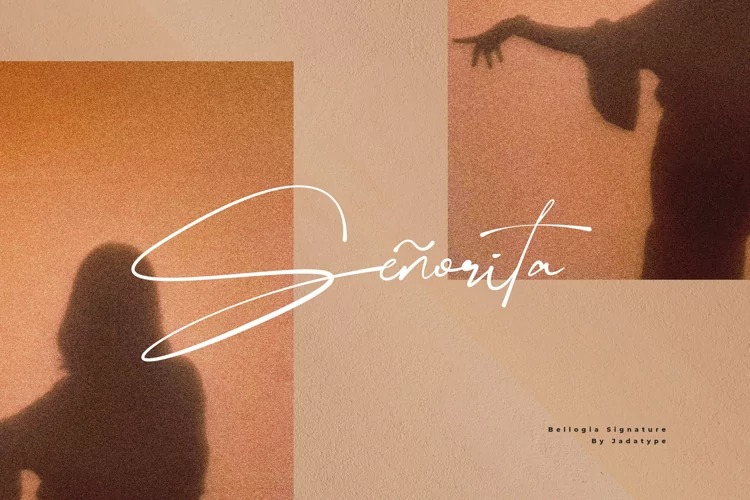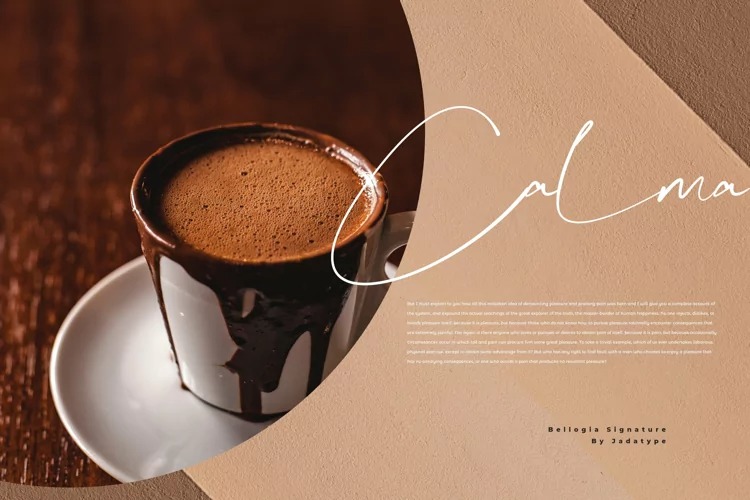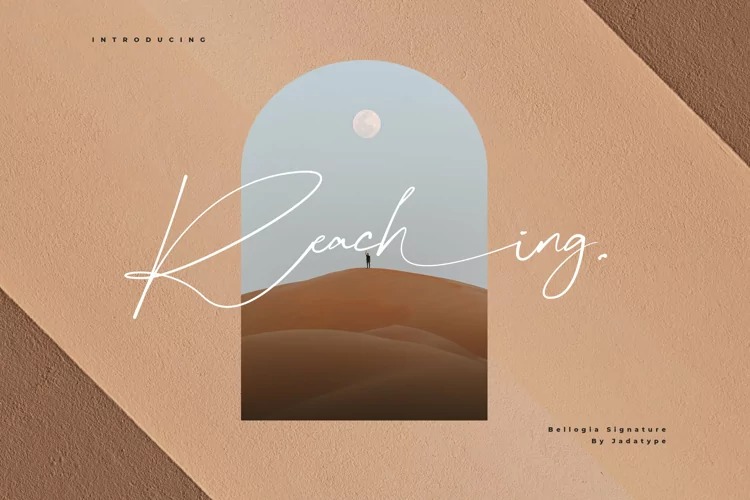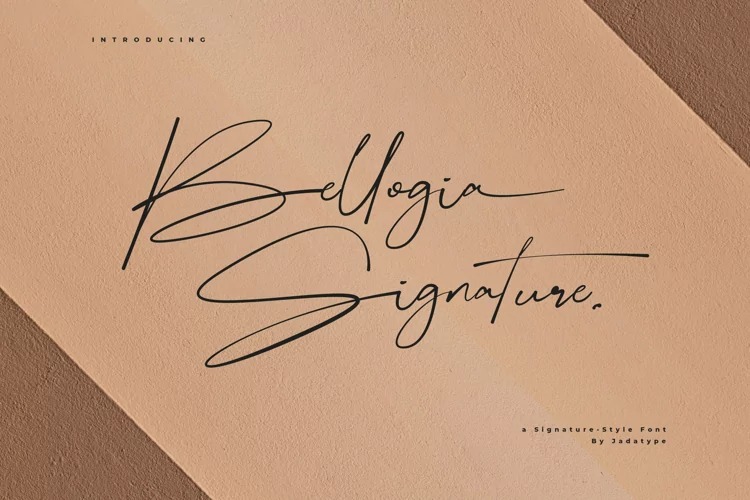
Bellogia Signature Font is simple signature typeface crafted & designed by jadatype. The shape is modern and unique and the writing style is very natural. Can be used for your designs, crafts, wordmarks, logos, branding, and others. contains standard English letters and some that support multilingual, can be installed in applications such as Adobe Family or Affinity.